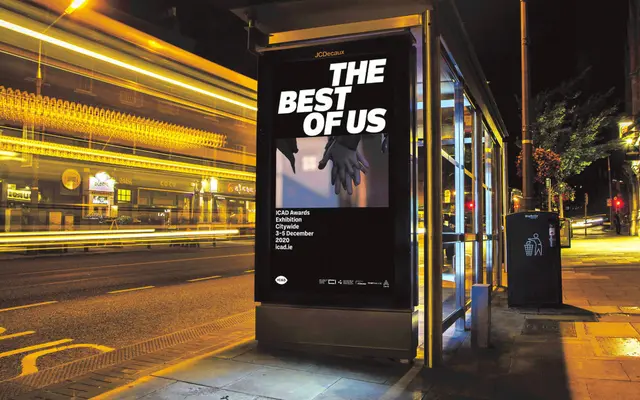
Ballinger
A wide-ranging grotesque sans from Signal with standard, condensed and extra-condensed widths, italics throughout, and a companion monospaced family.
Ballinger covers eight weights from Thin to Black across three widths, with italics for every standard weight, making it a genuinely flexible workhorse for editorial, branding and interface work. The condensed and extra-condensed cuts add nine weights each, giving designers tight columns and headline options without switching families. A dedicated mono subfamily rounds out the system, covering the same weight range for code or tabular contexts.
Ballinger presents as a grotesque sans-serif with a wide range of widths from standard to extra-condensed, typical of utility-focused grotesque families designed for versatile typographic use.